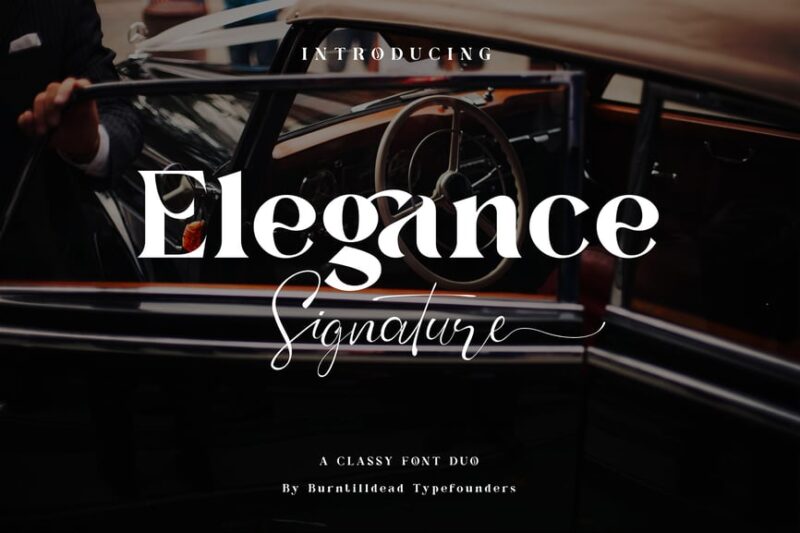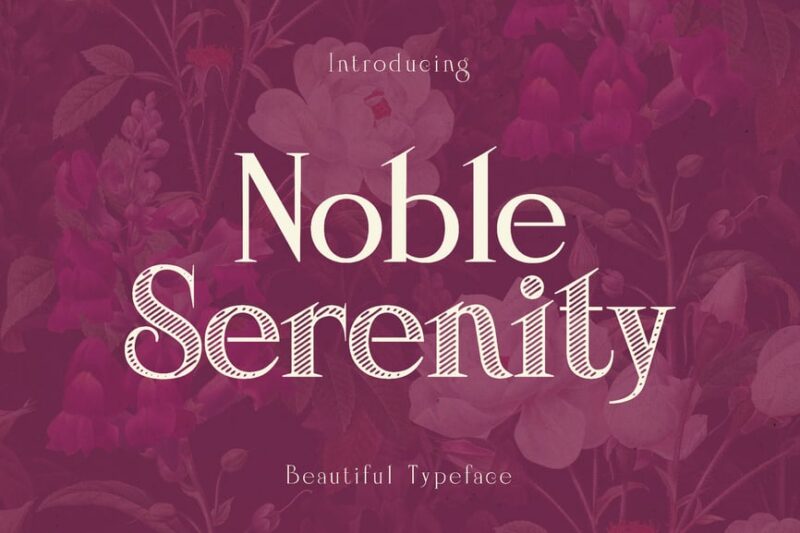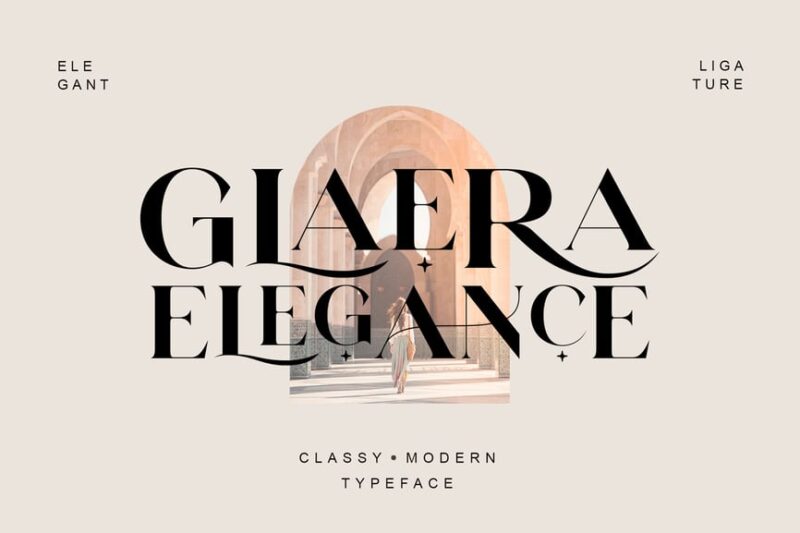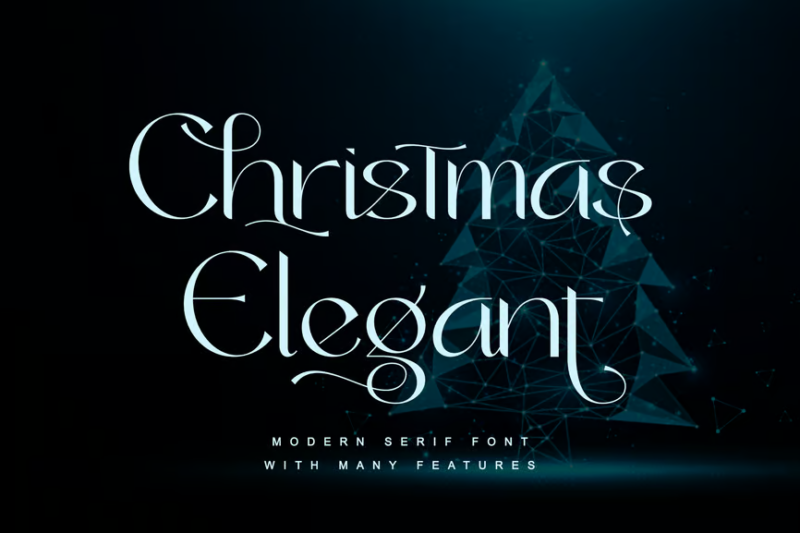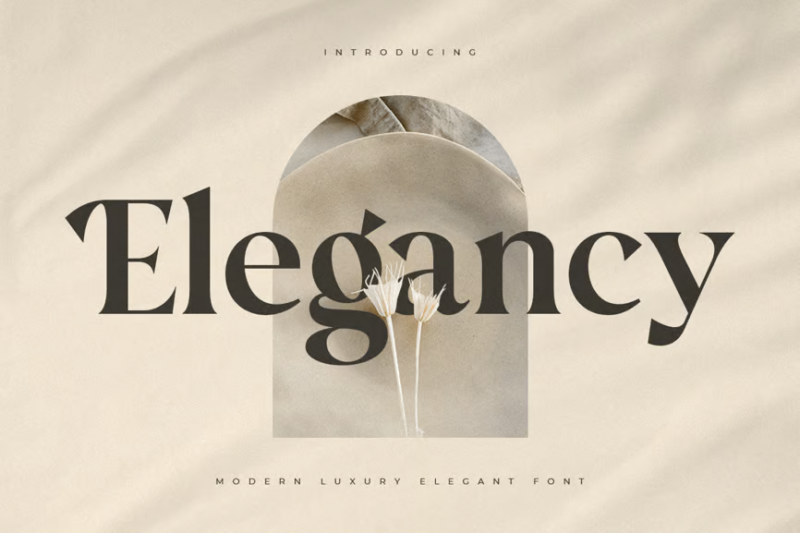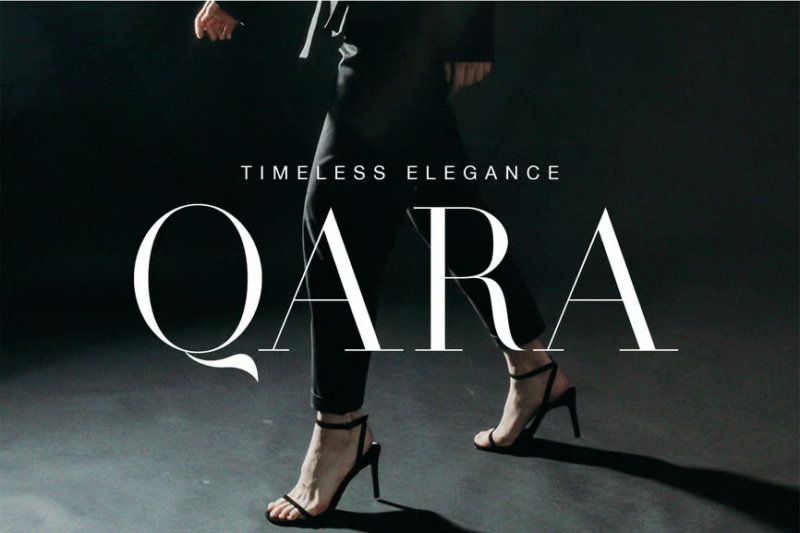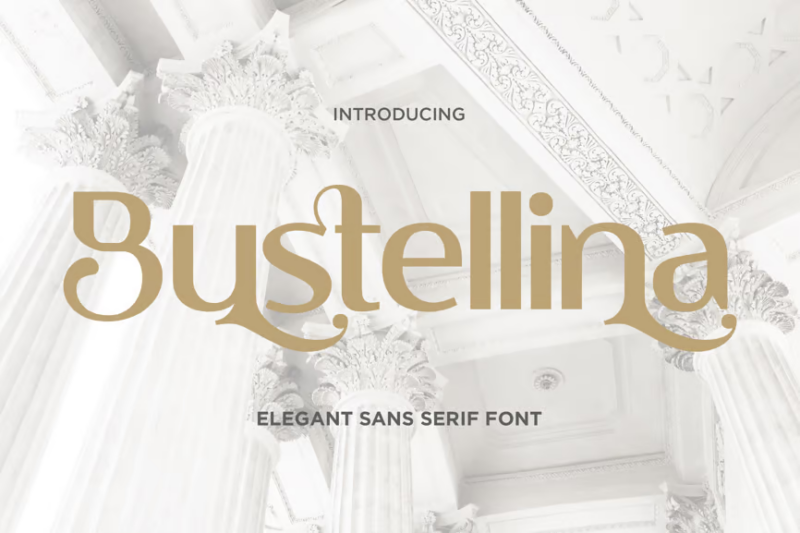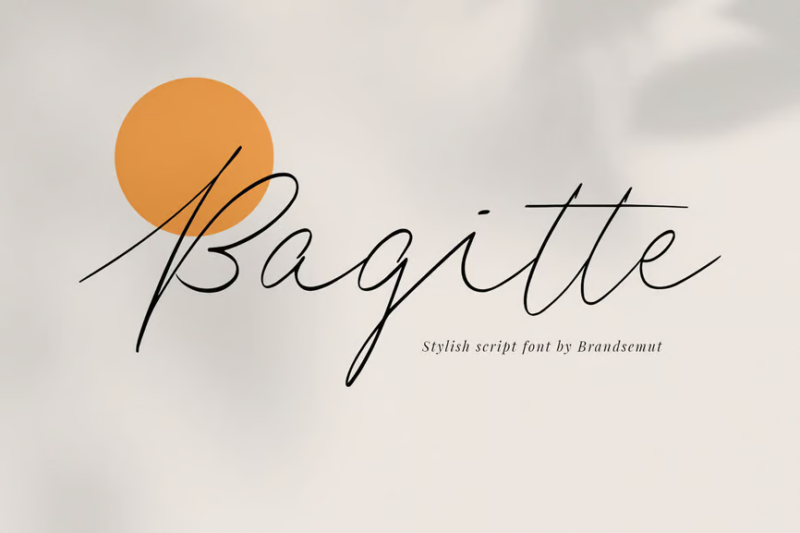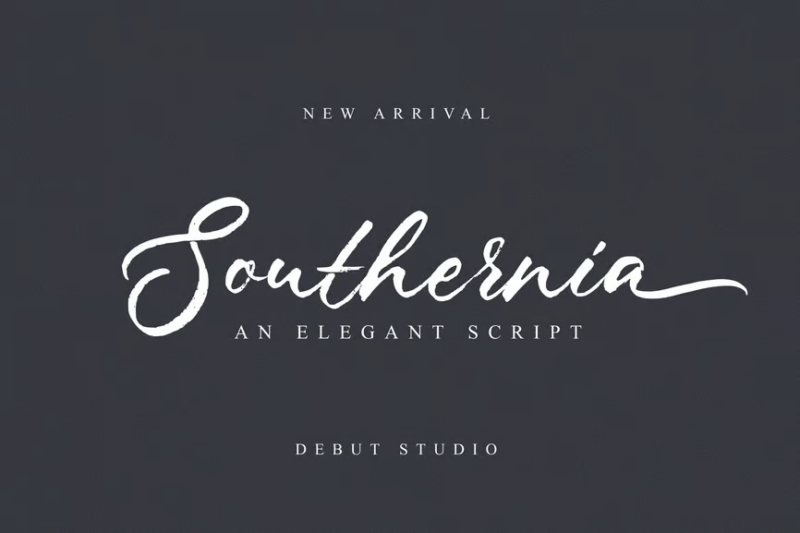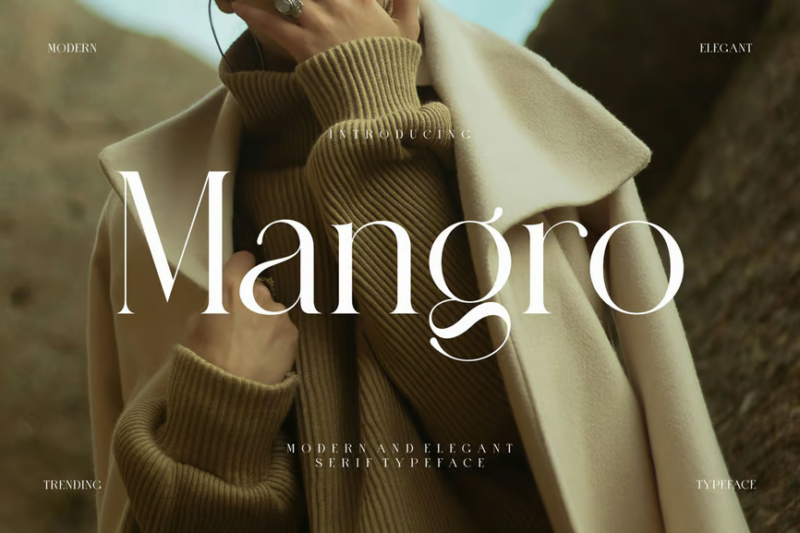
As designers, we’re constantly searching for typefaces that elevate our projects with a touch of refinement. Elegant fonts have made their mark across luxury branding, wedding stationery, editorial design, and high-end packaging.
Elegant fonts embody sophistication through their balanced proportions, thoughtful details, and graceful letterforms. They convey a sense of timelessness that resonates with discerning audiences seeking quality and craftsmanship.
The Most Sophisticated Elegant Fonts
Not all elegant fonts deliver the same refined experience. I’ve curated this list of the most exquisite typefaces that truly capture sophistication and style in 2026:
Elegance Signature
Elegance Signature is a modern font that combines handwritten charm with sophisticated elements. Its fluid strokes and elegant ligatures make it perfect for high-end branding, wedding invitations, and luxury product packaging.
Noble Serenity
Noble Serenity is an elegant serif typeface designed specifically for wedding-related materials. Its graceful curves and romantic touches make it a great feminine font, ideal for invitations, save-the-dates, and other nuptial stationery.
Glaera Elegance
Glaera Elegance is a festive serif typeface with a touch of Christmas spirit. Its refined letterforms and subtle holiday-inspired details make it suitable for seasonal greeting cards, holiday packaging, and winter-themed designs.
Christmas Elegant
Christmas Elegant is a serif font that exudes holiday charm while maintaining a sophisticated appearance. Its balanced letterforms and subtle festive elements make it perfect for creating elegant Christmas posters, banners, and promotional materials.
Elegancy
Elegancy is a modern luxury serif font that combines contemporary design with timeless elegance. Its clean lines and refined proportions make it ideal for high-end branding, editorial layouts, and upscale advertising campaigns.
Qara
Qara is a timeless elegant serif font inspired by Didot typefaces. Its high contrast between thick and thin strokes creates a sophisticated and dramatic look, perfect for fashion magazines, luxury branding, and upscale packaging design.
Elegant Sans-Serif
Elegant Sans-Serif is a refined and versatile font that combines simplicity with grace. Its clean lines and balanced proportions make it suitable for a wide range of applications, from romantic Valentine’s Day designs to modern corporate branding.
Bagitte
Bagitte is an elegant cursive font that mimics the flow of handwritten signatures. Its graceful curves and natural ligatures make it ideal for creating personalized stationery, wedding invitations, and sophisticated branding materials.
Southernia
Southernia is an elegant handwritten font with a brushed texture, giving it a natural and organic feel. Its flowing letterforms and stylish swashes make it perfect for creating eye-catching logos, book covers, and social media graphics.
Mangro Elegant Serif Typeface
Mangro is an elegant serif typeface that balances classic design with modern sensibilities. Its refined letterforms and subtle details make it suitable for a wide range of applications, from editorial layouts to high-end packaging design.
Afterglow Elegant Serif
Afterglow is an elegant serif font that exudes sophistication and timeless appeal. Its well-proportioned characters and classic styling make it ideal for creating memorable logos, book covers, and upscale branding materials.
Astrid Elegant Ligature Typeface
Astrid is an elegant serif typeface featuring beautiful ligatures that add a touch of sophistication to any design. Its graceful letterforms and stylish connections make it perfect for creating stunning headlines, logos, and editorial layouts.
Leony – Elegant Serif
Leony is an elegant serif font that combines classic charm with modern refinement. Its well-balanced characters and subtle details make it versatile for various design projects, from luxury branding to high-end packaging and editorial design.
Margaret Elegant Serif
Margaret is an elegant serif font with decorative elements that add a touch of sophistication to any design. Its refined letterforms and stylish ligatures make it ideal for creating eye-catching headlines, logos, and typography-driven layouts.
Aulieny – Elegant Serif
Aulieny is a modern elegant serif font that combines classic elements with contemporary design. Its clean lines and refined proportions make it suitable for a wide range of applications, from editorial layouts to branding and packaging design.
Lumixia – Elegant Font
Lumixia is an elegant sans-serif font that blends vintage charm with modern aesthetics. Its clean lines and subtle retro touches make it versatile for various design projects, from branding and packaging to web and print applications.
Valeria – Elegant Serif
Valeria is an elegant serif font with organic shapes and decorative elements. Its graceful curves and stylish ligatures make it perfect for creating sophisticated designs, such as logos, wedding invitations, and high-end packaging.
Arleta || elegant font
Arleta is a modern elegant serif typeface that combines classic sophistication with contemporary design. Its well-balanced characters and refined details give subtle art deco font vibes and make it suitable for various applications, from editorial layouts to branding and advertising.
Ginger Elegant Ligature Serif Typeface
Ginger is an elegant serif typeface featuring stylish ligatures that add a touch of sophistication to any design. Its refined letterforms and graceful connections make it ideal for creating stunning headlines, logos, and high-end branding materials.
Vicenza – Elegant Serif
Vicenza is a modern elegant serif font that combines classic elements with contemporary design for a more masculine font. Its clean lines and balanced proportions make it versatile for various applications, from editorial layouts to branding and packaging design.
Karatone – Elegant Serif
Karatone is an elegant serif font with decorative elements that seamlessly blend serif and sans-serif styles. Its unique character shapes and stylish ligatures make it perfect for creating eye-catching headlines, logos, and sophisticated designs.
Drakors elegant font
Drakors is an elegant font that combines serif and script styles, offering versatility in design. Its flowing letterforms and stylish ligatures make it suitable for creating sophisticated logos, invitations, and branding materials with a personal touch.
Morona – Elegant Serif
Morona is an elegant serif font designed with a focus on lifestyle and sophistication. Its luxurious letterforms and subtle details make it ideal for editorial layouts, high-end branding, and creating a refined atmosphere in various design projects.
Oleana – Elegant Typeface
Oleana is a beautiful and elegant sans-serif typeface that exudes sophistication and style. Its clean lines and balanced proportions make it perfect for fashion-related designs, luxury branding, and creating eye-catching headlines and logos.
Ansela – Elegant Sans
Ansela is an elegant sans-serif font that combines simplicity with sophistication. Its clean and modern design makes it ideal for fashion-related projects, luxury branding, and creating stylish layouts for both print and digital media.
Carika – Elegant Serif
Carika is an elegant serif font that exudes sophistication and refinement. Its well-balanced characters and subtle details make it perfect for creating high-end branding materials, editorial layouts, and designs that require a touch of luxury.
Typhone Elegant Serif
Typhone is a luxurious elegant serif font that combines classic design with modern aesthetics. Its refined letterforms and subtle contrasts make it ideal for creating sophisticated branding materials, high-end packaging, and upscale advertising campaigns.
Careny – Elegant Serif
Careny is a modern elegant serif font that strikes a balance between classic and contemporary design. Its clean lines and refined details make it versatile for various applications, from editorial layouts to branding and digital media projects.
Valerius – Elegant Typeface
Valerius is a luxurious and classy elegant serif typeface that exudes sophistication. Its well-proportioned characters and refined details make it perfect for creating high-end branding materials, editorial layouts, and designs that require a touch of opulence.
Elegant Serif Font
This Elegant Serif Font combines luxury and modernity in its design. Its refined letterforms and balanced proportions make it suitable for various high-end applications, from branding and packaging to editorial layouts and advertising materials.
Grace Elegant Font
Grace is a modern elegant serif font that lives up to its name with graceful and refined letterforms. Its sophisticated design makes it ideal for creating stylish logos, headlines, and branding materials that require a touch of elegance and contemporary flair.
Florisha – Elegant Sans
Florisha is an elegant sans-serif font with a monoline design that exudes simplicity and sophistication. Its clean and modern letterforms make it perfect for creating minimalist logos, contemporary branding, and sleek digital interfaces.
Bettran elegant typeface
Bettran is a luxurious elegant serif typeface that combines sophistication with modern design elements. Its refined letterforms and stylish details make it ideal for high-end branding, editorial layouts, and creating a sense of opulence in various design projects.
Gabriella – Elegant Font
Gabriella is an elegant parisian font that balances simplicity with sophistication. Its clean lines and well-proportioned characters make it versatile for various design applications, from modern branding and packaging to digital interfaces and editorial layouts.
What Makes a Font Feel Elegant?
Elegant fonts derive their sophisticated presence from several key characteristics:
Balanced Proportions
First, elegant fonts feature meticulously balanced letterforms. The relationship between height, width, and negative space feels intentional and harmonious – nothing appears accidental or awkward.
This careful balance creates visual rhythm that feels satisfying to the eye. Letters maintain consistent visual weight across the entire character set for a cohesive, refined appearance.
Thoughtful Contrast
Most elegant fonts incorporate deliberate contrast between thick and thin strokes. This variation – whether subtle or dramatic – references the natural movement of calligraphy and traditional penmanship.
The transition between thick and thin elements flows naturally, creating a sense of movement and grace. This contrast adds visual interest without becoming distracting or overwhelming.
Refined Details
The hallmark of truly elegant fonts lies in their thoughtful details. Notice the graceful curve of a terminal, the precise angle of a serif, or the delicate finish of a letterform.
These small touches – like the slight flare at the end of a stroke or the carefully shaped bowl of an ‘a’ – demonstrate craftsmanship and attention that elevate the entire design.
Timeless Quality
Finally, elegant fonts possess a certain timelessness. While they may incorporate contemporary elements, they avoid overly trendy features that might quickly feel dated.
This enduring quality makes them perfect for luxury brands, formal occasions, and projects intended to convey lasting value and significance.
Where to Use Elegant Fonts
Elegant fonts shine in contexts where sophistication and refinement are desired. Here are prime applications where elegant typography makes a significant impact:
Luxury Branding
Elegant fonts are the cornerstone of luxury brand identities. From high-end fashion houses to premium spirits, fine jewelry to exclusive hotels – sophisticated typography communicates quality and exclusivity.
For example, fashion brands like Burberry, Chanel, or Dior rely on elegant typefaces to reinforce their luxury positioning. The refined letterforms mirror the craftsmanship of their products.
Wedding Stationery
Wedding invitations, save-the-dates, programs, and other ceremonial stationery benefit tremendously from elegant fonts. The formality and romance of these typefaces set the perfect tone for special celebrations.
Script fonts like Lovelace or Ophelia add a personal, intimate touch, while sophisticated serifs like Baskerville Modern lend gravitas and tradition to wedding communications.
Editorial Design
Magazines, particularly those in fashion, lifestyle, and luxury categories, frequently employ elegant typography. High-contrast serifs create dramatic headlines and pull quotes that command attention.
Elegant fonts also enhance feature articles, photo essays, and special issues where the typography needs to match the refinement of the content.
Fine Dining
Upscale restaurants, wine labels, and gourmet food packaging leverage elegant fonts to communicate quality ingredients and exceptional taste experiences.
Menu design particularly benefits from elegant typography that enhances the dining experience through sophisticated visual presentation.
Corporate Communications
For established institutions like law firms, financial services, or consultancies, elegant fonts convey trustworthiness, heritage, and professionalism.
Annual reports, client presentations, and corporate stationery benefit from the authoritative presence that elegant typography provides.
Where to Avoid Elegant Fonts
While elegant fonts excel in many contexts, there are situations where their refined qualities become limitations:
Digital Interfaces
Many elegant fonts, particularly those with extreme contrast or delicate details, suffer at small sizes on screens. The fine elements can disappear or blur, compromising both aesthetics and readability.
For user interfaces, dashboards, or any text requiring extended reading on digital devices, more robust fonts designed specifically for screen rendering will perform better.
Casual or Playful Brands
Brands targeting younger audiences or conveying approachability and fun might find elegant fonts too formal or stuffy. Their refined nature can create disconnect with messaging intended to feel relaxed or playful.
Youth-oriented products, casual dining establishments, or brands with an intentionally irreverent personality should consider more approachable alternatives.
Technical Documentation
For instruction manuals, technical specifications, or educational materials where clarity is paramount, elegant fonts with stylistic flourishes or extreme contrast can distract from information comprehension.
Straightforward, highly legible typefaces optimize readability for these functional applications.
Accessibility-Focused Design
When designing for audiences with visual impairments or reading difficulties, many elegant fonts present challenges. Their decorative elements and sometimes narrow character widths can reduce legibility for certain users.
Projects prioritizing universal accessibility should opt for fonts specifically designed with inclusive readability in mind.
How to Choose the Perfect Elegant Font
Selecting the ideal elegant font requires thoughtful consideration of several factors:
Brand Personality
First, consider the specific type of elegance your brand embodies. Is it classic and traditional? Modern and minimalist? Romantic and expressive? Different elegant fonts convey different emotional qualities.
A heritage luxury brand might select a dignified serif with historical references, while a contemporary high-end tech product might choose a more geometric, streamlined elegant font.
Application Context
Consider where and how the font will be used. Will it primarily appear in print or digital environments? At large sizes for headlines or small sizes for body text? These practical considerations influence which elegant font will perform best.
Fonts with extreme contrast work beautifully for large display applications but often struggle at text sizes. Consider the full range of applications before committing.
Character Set Completeness
Ensure your chosen elegant font includes all the characters you’ll need – extended Latin glyphs, numerals, special characters, and potentially multiple weights for flexibility.
The most sophisticated elegant fonts offer comprehensive character sets that maintain consistent refinement across every symbol.
Pair Compatibility
Few projects use a single font exclusively. Consider how your elegant font will pair with secondary typefaces in your system. The most successful combinations balance contrast and complement.
An elegant serif often pairs beautifully with a clean sans-serif, creating a dynamic relationship while maintaining sophistication.
Pairing Elegant Fonts Effectively
Creating harmonious typography systems with elegant fonts requires thoughtful pairing strategies:
Contrast in Structure
The most successful pairings often combine an elegant serif or signature font with a complementary sans-serif. This structural contrast creates visual interest while maintaining harmony.
For example, pairing the dramatic Vogue Didone with a geometric sans-serif creates a sophisticated dynamic between expressive headlines and clean supporting text.
Consistency in Proportion
While contrasting structures work well, maintain consistency in proportions. Fonts with similar x-heights, character widths, or overall scale tend to work together more harmoniously.
Look for complementary fonts that share similar optical sizes or were designed as companions within a superfamily.
Hierarchy through Weight
Create clear typographic hierarchy by using different weights within your elegant font family. A light weight for body text with medium for subheads and bold for main headlines creates organized sophistication.
This approach maintains consistency while establishing distinct levels of emphasis within your design.
Limited Palette
Exercise restraint in the number of fonts used. The most elegant typography often employs just two carefully selected typefaces – sometimes even variations within a single font family.
This disciplined approach creates cohesive sophistication rather than chaotic competition between too many distinctive voices.
Elegant Font Alternatives
If traditional elegant fonts don’t quite match your needs, consider these sophisticated alternatives:
Refined Sans-Serifs
Contemporary elegant designs often employ sophisticated sans-serifs that balance minimalism with subtle refinement. Options like Optima, Avenir, or Gotham offer elegance through perfect proportions rather than decorative elements.
These fonts work particularly well for modern luxury brands that prefer understated sophistication over ornate detailing.
Humanist Serifs
For projects requiring extended reading while maintaining elegance, humanist serifs provide an excellent alternative. Fonts like Alegreya, Cambria, or Freight Text combine readability with subtle sophistication.
These options excel in editorial contexts where both elegance and prolonged readability matter.
Contemporary Slabs
For a bold, confident elegance, refined slab serifs offer distinctive character while maintaining sophistication. Options like Sentinel, Archer, or Clarendon bring substantial presence while remaining elevated.
These fonts work particularly well for brands wanting to project strength alongside refinement.
Common Elegant Font Questions
Let’s address some frequently asked questions about elegant typography:
What font is considered the most elegant?
While elegance is somewhat subjective, typefaces like Baskerville, Didot, and Bodoni are widely considered among the most elegant due to their refined proportions, dramatic contrast, and historical significance in luxury printing. Contemporary interpretations of these classics continue to define elegant typography.
What font do luxury brands use?
Luxury brands typically employ either high-contrast serifs (like those used by Dior and Vogue), refined sans-serifs (like Burberry’s custom typeface), or distinctive logotypes (like Cartier’s recognizable wordmark). The consistent quality is meticulous attention to typographic detail that mirrors the craftsmanship of their products.
What is a classy font style?
Classy font styles typically feature balanced proportions, thoughtful details, and restrained design. They avoid trendy quirks in favor of timeless attributes. Classic serifs, refined scripts with moderate flourishes, and elegant sans-serifs with subtle modulation all qualify as classy font styles appropriate for sophisticated applications.
What font says sophistication?
Sophisticated fonts generally feature thoughtful contrast, refined details, and perfect balance. Didones like Didot and Bodoni immediately communicate sophistication through their dramatic thick-thin transitions. For a more contemporary sophistication, fonts like Optima or Gotham achieve elegance through perfect proportions rather than decorative elements.
Conclusion: The Timeless Power of Elegant Typography
As we’ve explored, elegant fonts offer designers powerful tools for communicating sophistication, quality, and refinement. From the dramatic contrast of high-fashion Didones to the flowing grace of calligraphic scripts, these typefaces elevate designs through their thoughtful craftsmanship and balanced beauty.
When selecting elegant fonts for your projects, remember to consider the specific quality of elegance that resonates with your brand personality, the practical applications where the font will appear, and how it will harmonize with your overall typographic system.
Used thoughtfully, elegant typography creates immediate visual distinction that signals quality to your audience. It communicates that you value craftsmanship, attention to detail, and timeless design principles – messages that resonate deeply with discerning clients and customers.
And remember – true elegance never goes out of style.